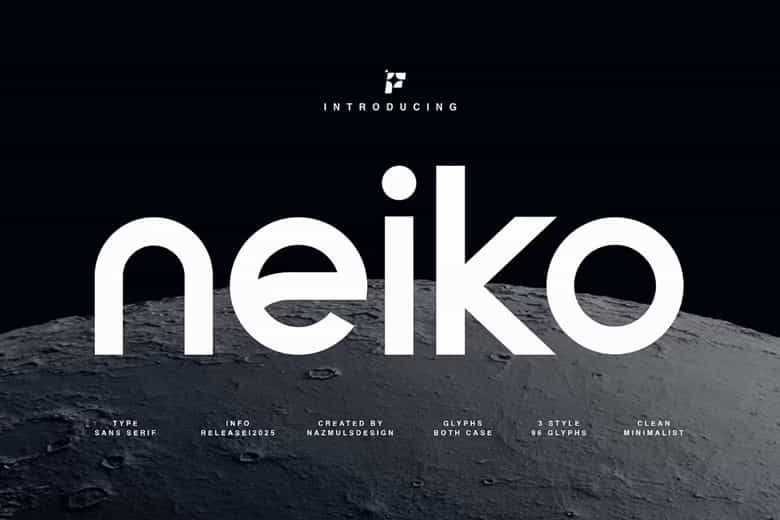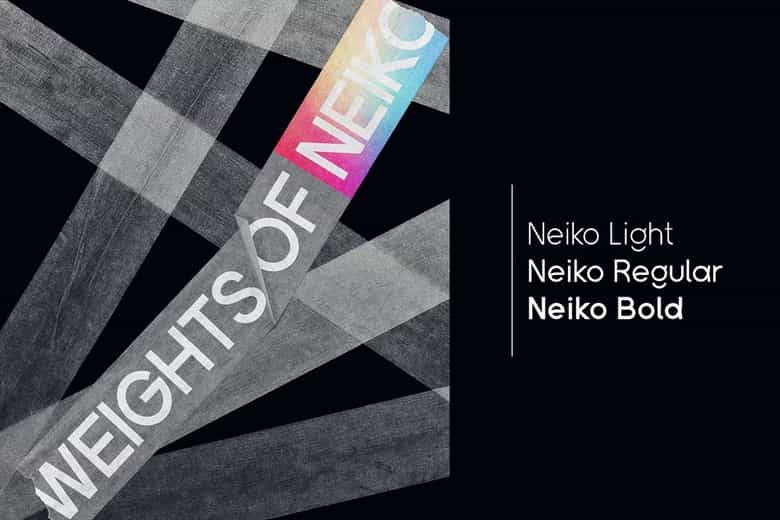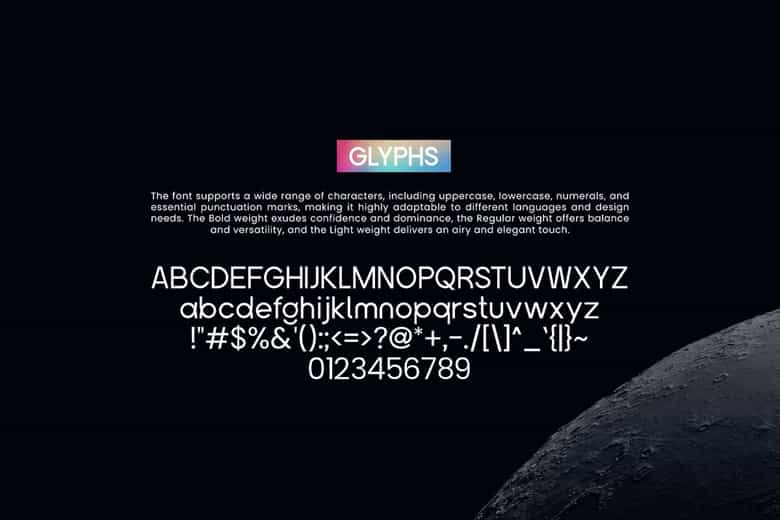
Neiko is elegant and modern sans-serif type which is an all-rounder characterized by clarity. Neiko font has a clear and restrained forms and impeccable metrics – that is why it can be perfectly used for brand identification, magazine design, packaging design, etc. It is available in three versions: bold, regular, and light so you can achieve more contrast and express more with the type in less space.